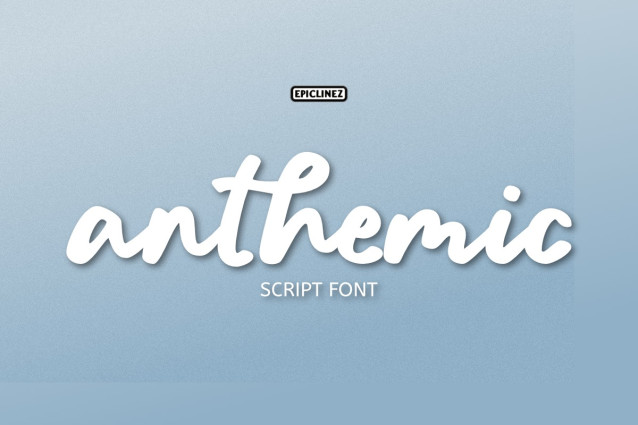
Anthemic Font
Anthemic Font is a lovely and timeless handwritten script font. It is the right choice for creating eye-catching logos, branding, and quotes.